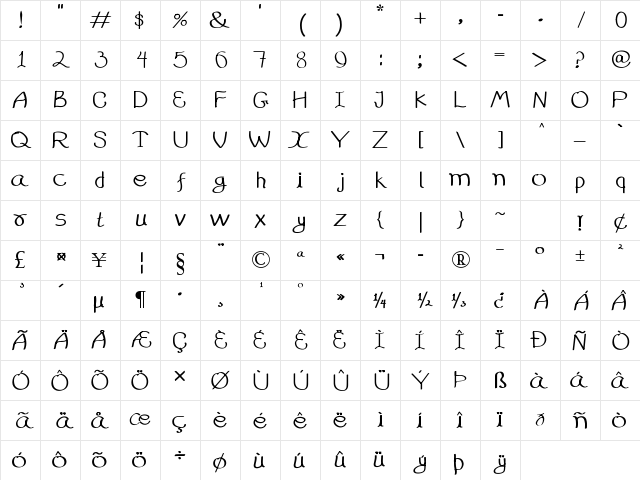
99%HandWritting Regular Free Font
99%HandWritting Regular
Foundry: Habib Shaikh
Designer: Habib Shaikh
Design Context for 99%HandWritting
99%HandWritting flows with the natural rhythm of handwritten lettering, making it ideal for designs that call for warmth and personal expression.
Font Pairing: Combine 99%HandWritting with a simple geometric sans for maximum contrast - the tension between flowing curves and clean structure is a classic typographic pairing.
Pro Tip: Use 99%HandWritting for short runs of text - names, titles, or taglines. Extended body copy in script faces tires the eye quickly.